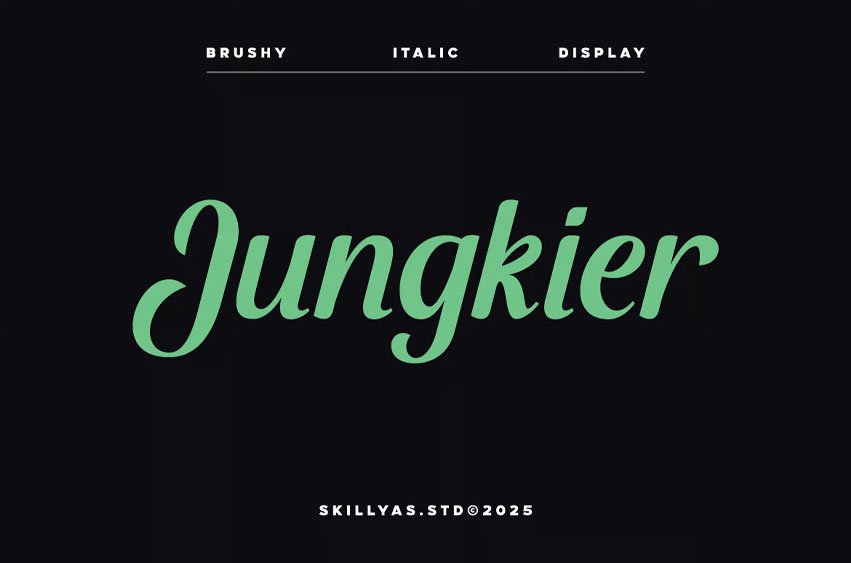
Jungkier Font is a Bold, Handcrafted Display Font with a Unique, Artistic Flair. Ideal for Branding, Posters, Packaging, and Creative Projects, it adds a personal and expressive touch to any design.
• Uppercase & Lowercase Letters